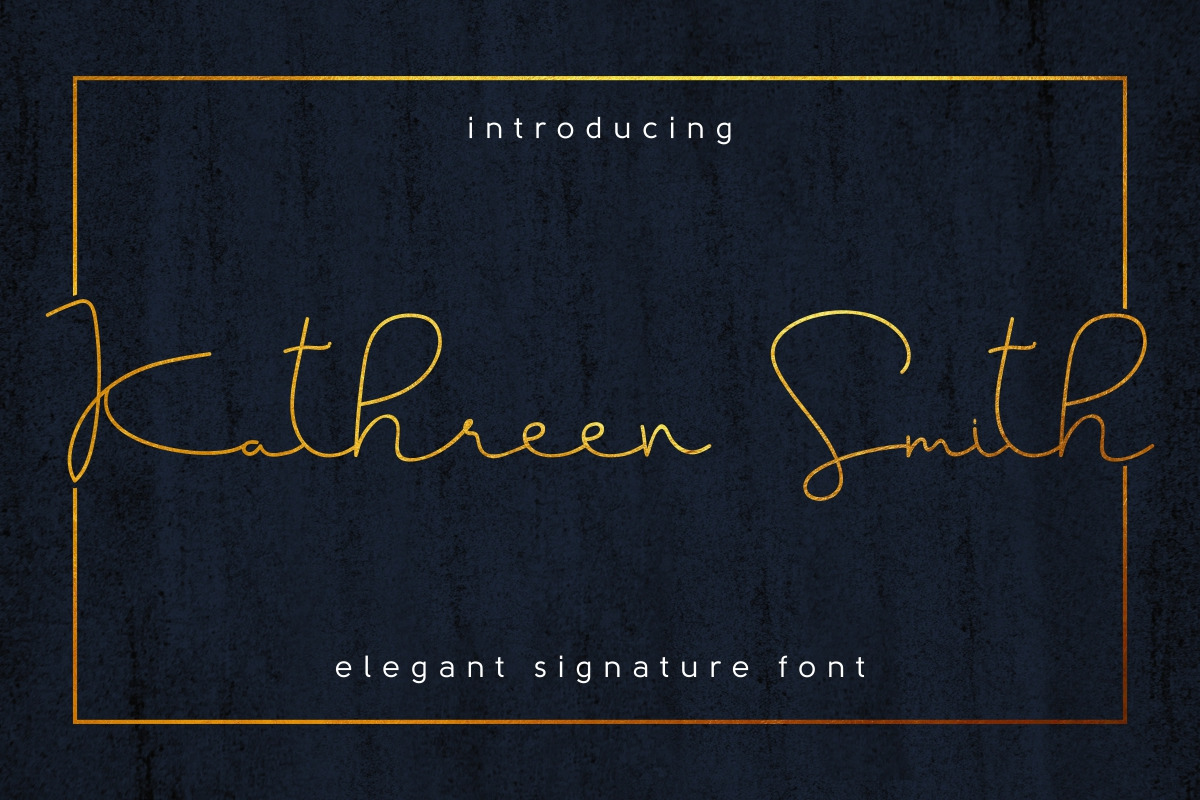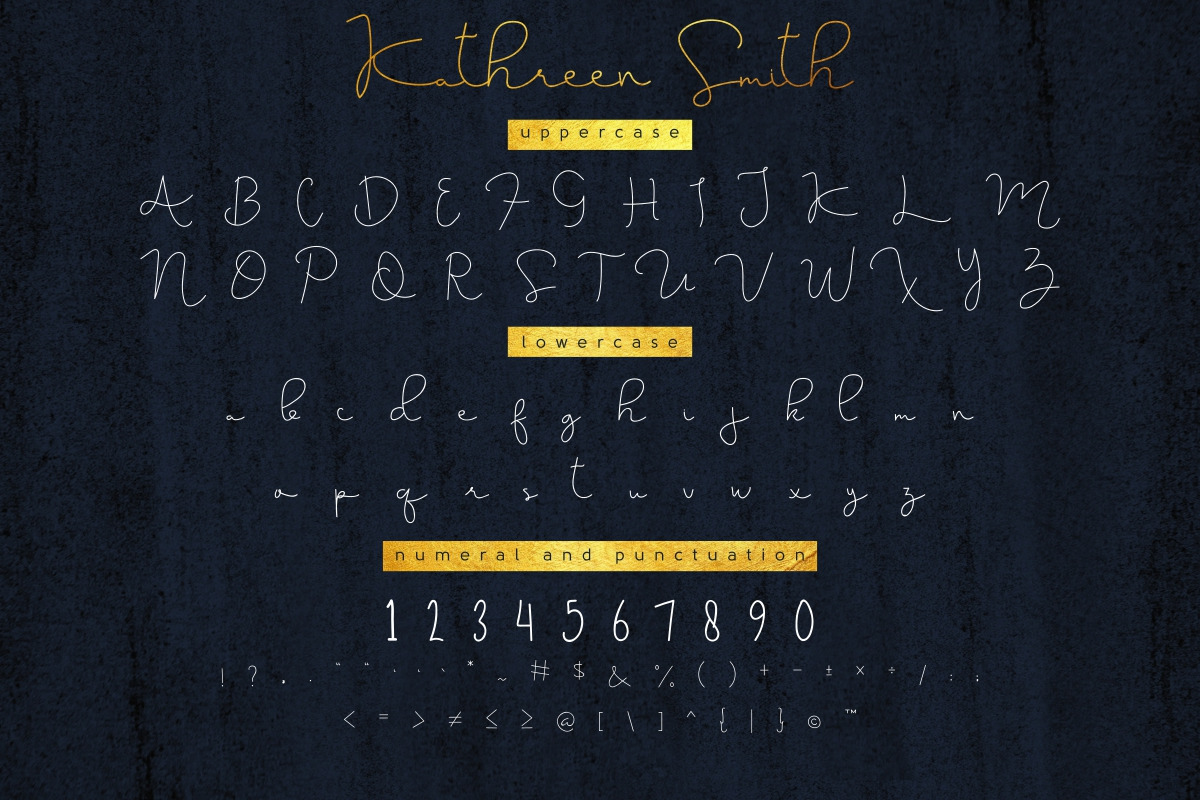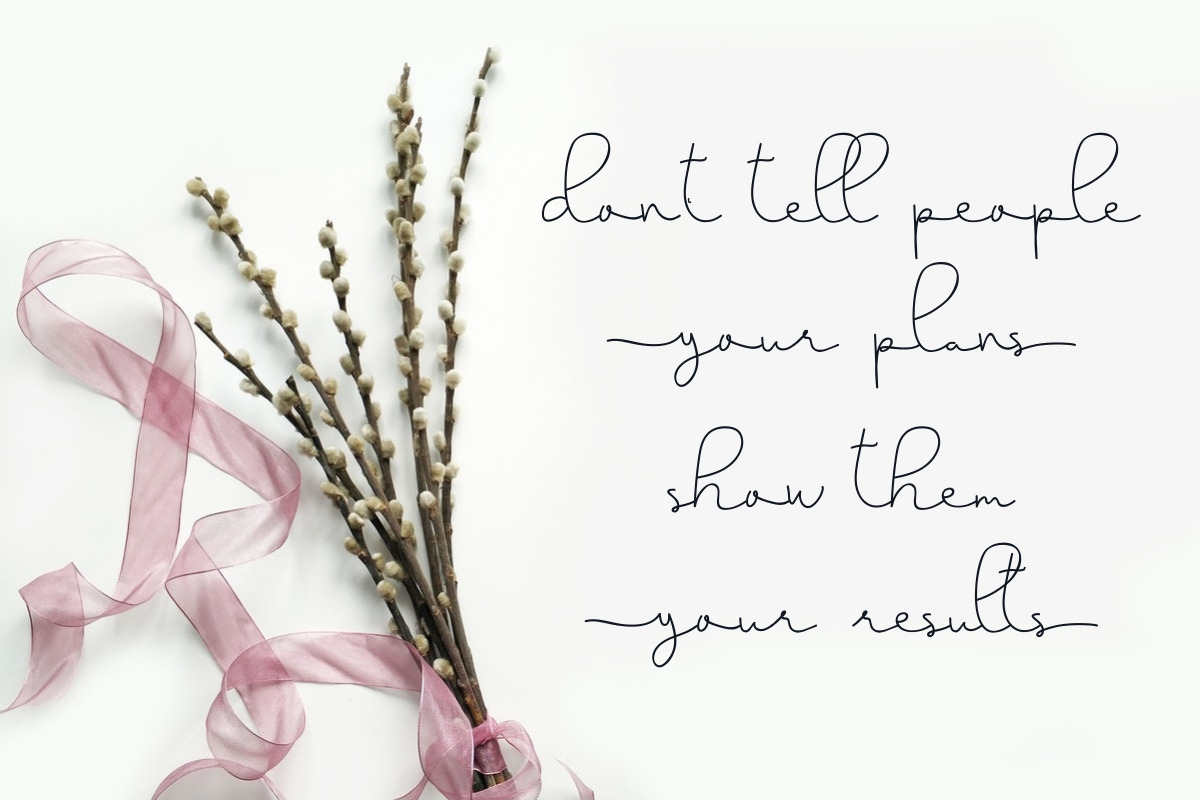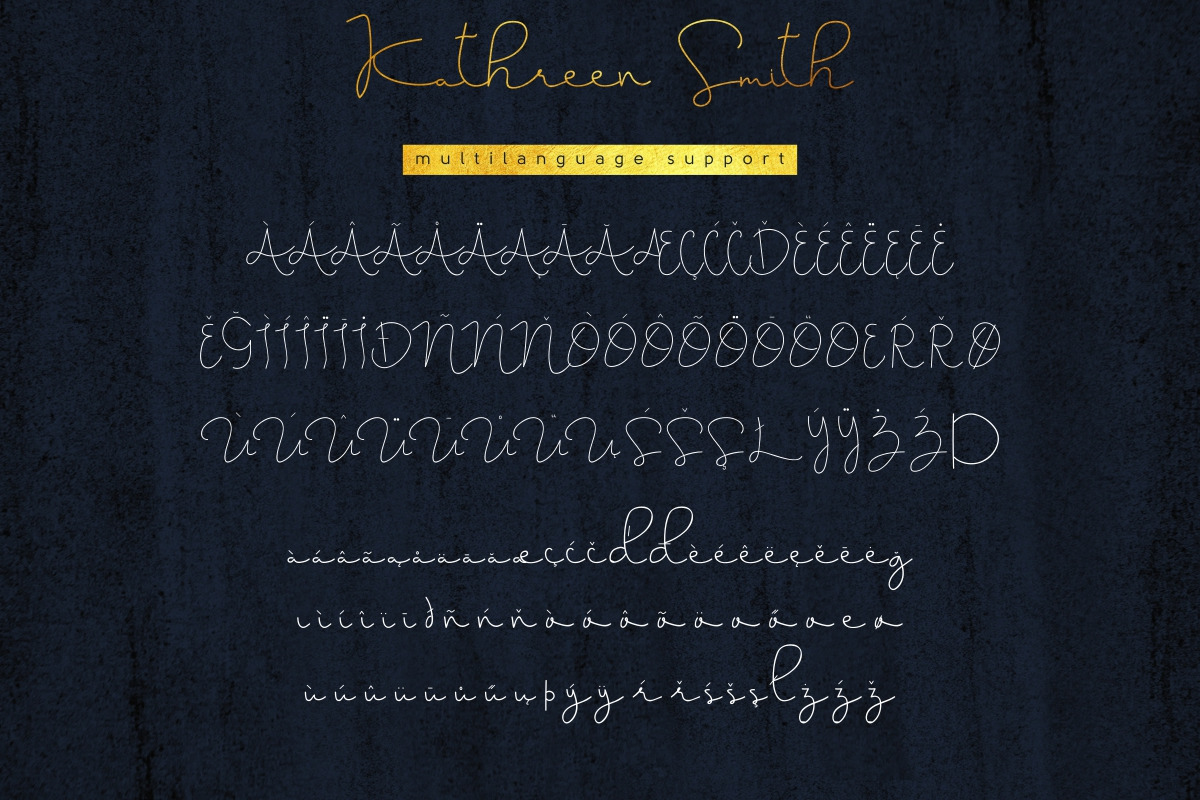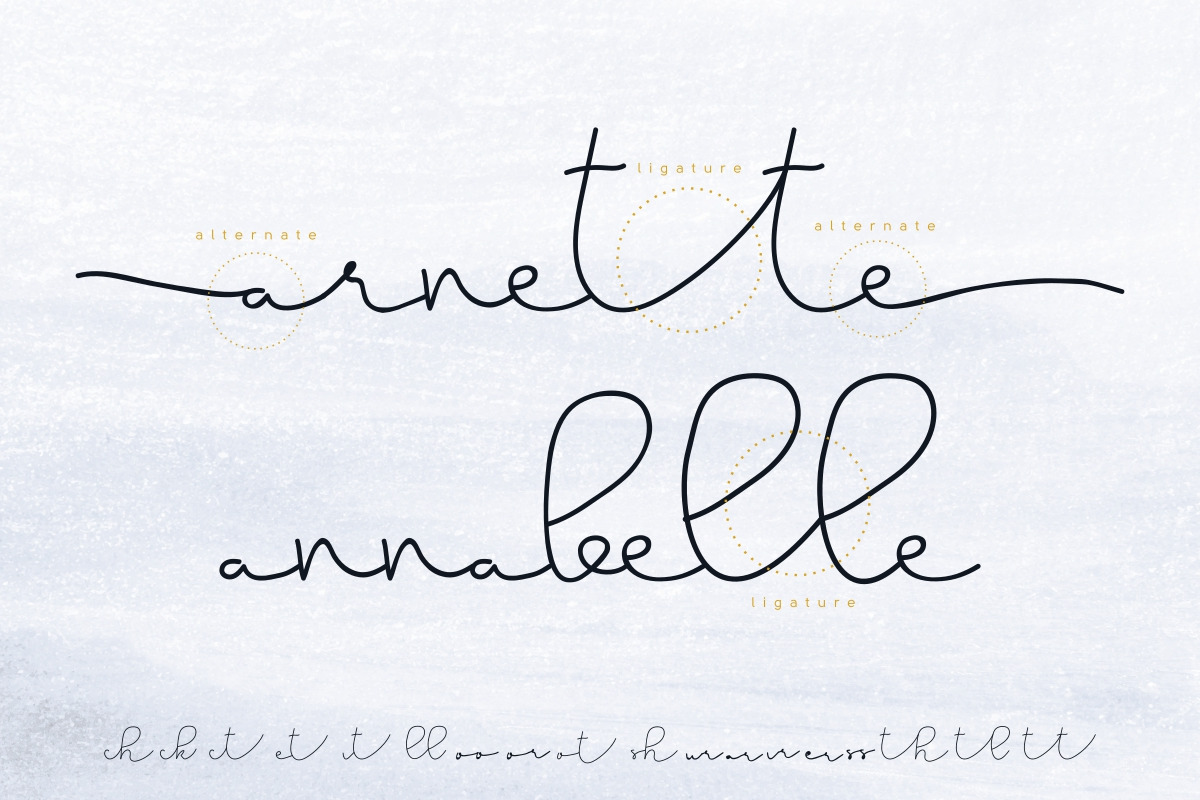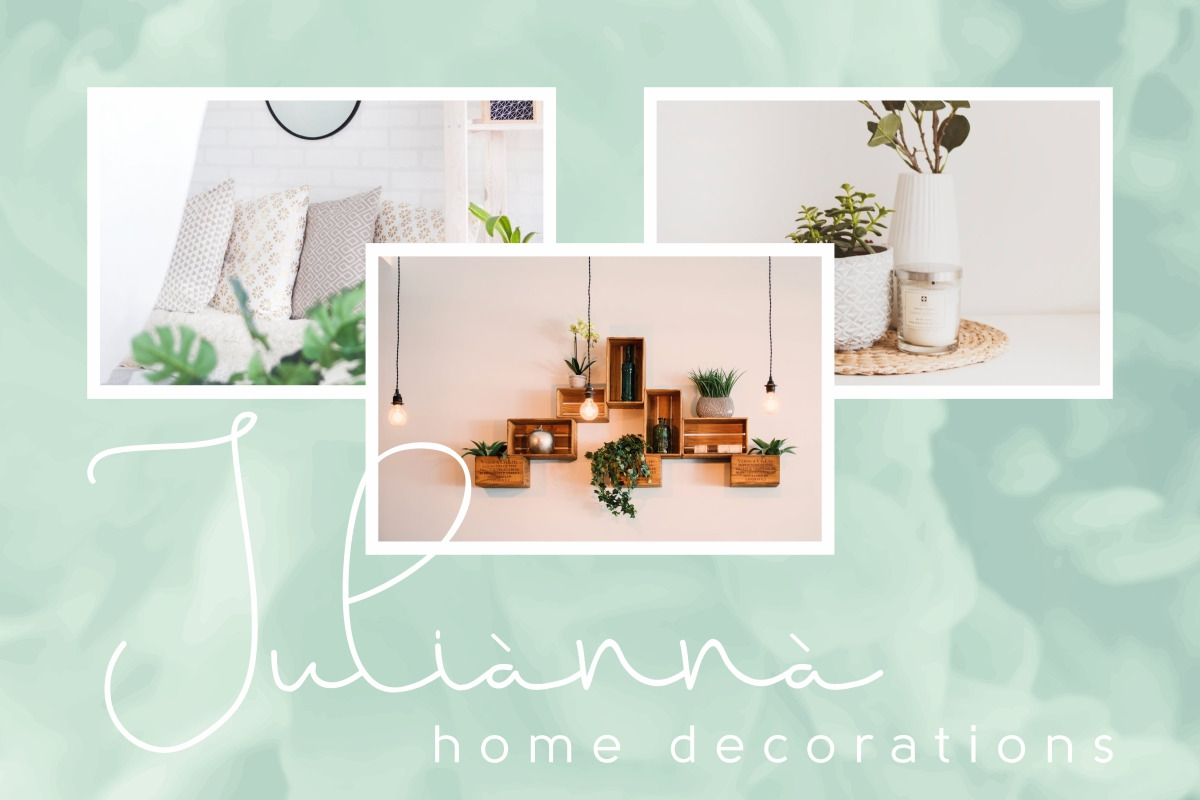
Kathreen Smith Handwriting Font
Introducing Kathreen Smith Font, our newest font with simple handwriting style.
This is a simple handwriting font script. Kathreen Smith Font supports most of international language characters. With its stunning glyphs, Kathreen Smith Font will be perfect for all your projects/ products : logo (with extended license), branding, cover, banner, social media, magazine, product label, tag, etc